In today’s digital world, sometimes the art of decorative handwriting is forgotten. However, there’s countless calligraphy fonts available online that give your digital text a handwritten look. Calligraphy font allows you to brand your images and videos with a distinct style and cut through the noise of plain content.
It can be frustrating to search for the perfect font, then apply it to your images and videos. Either the online editor doesn’t provide the right font, or it doesn’t give you the option to add your own. In this article, you’ll learn how to do it both ways. And, you’ll see how to add the calligraphy to your images and videos to create engaging content for social media. Follow these steps to learn how:
1. Upload Your Content
First, open the Kapwing studio and ‘Click to upload’ the content from your device. If the content exists on another platform like Instagram or YouTube, copy the link on the post and paste it into the lower box.
Either way, you’re content will automatically upload to the studio -- just wait for it to fully load. Once that’s done, you’re ready to add a calligraphy font.
2. Add Calligraphy Font
Next, click ‘Text’ from the top toolbar to add a text box. Now, you can custom the message and drag the box around to place it where you like. To get a calligraphy font, select the text and change the font with the menu on the right side. In this example, I’m using the free font called “Calligraffiti” to give it that handwritten look.
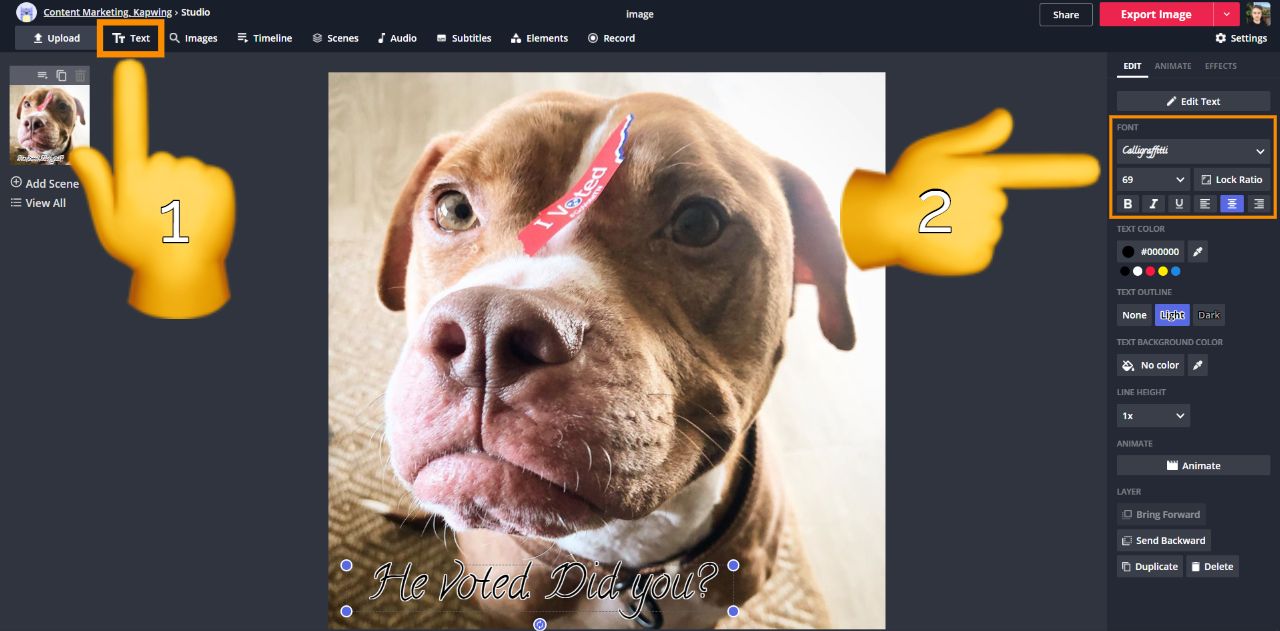
If you want more options, click ‘More Fonts’ in the font drop menu to search every font on Kapwing and sort from A-Z. There’s tons of great fonts to choose from like “Aquafina Script,” “Dancing Script” and “Lovers Quarrel.”
If none of those fonts satisfy, no worries. Kapwing gives Pro users the option to upload a custom font via a .ttf or .otf file. DaFont is a great website to find calligraphy fonts for free and they have thousands to choose from.
3. Customize the Design
Now, it’s time to get creative. Select the calligraphy font and start editing with the tools on the right. There’s options to change text formatting, color, outline and background. Since calligraphy can be hard to read from a distance, I recommend a text outline, contrasting colors and the font size to be as big as possible.
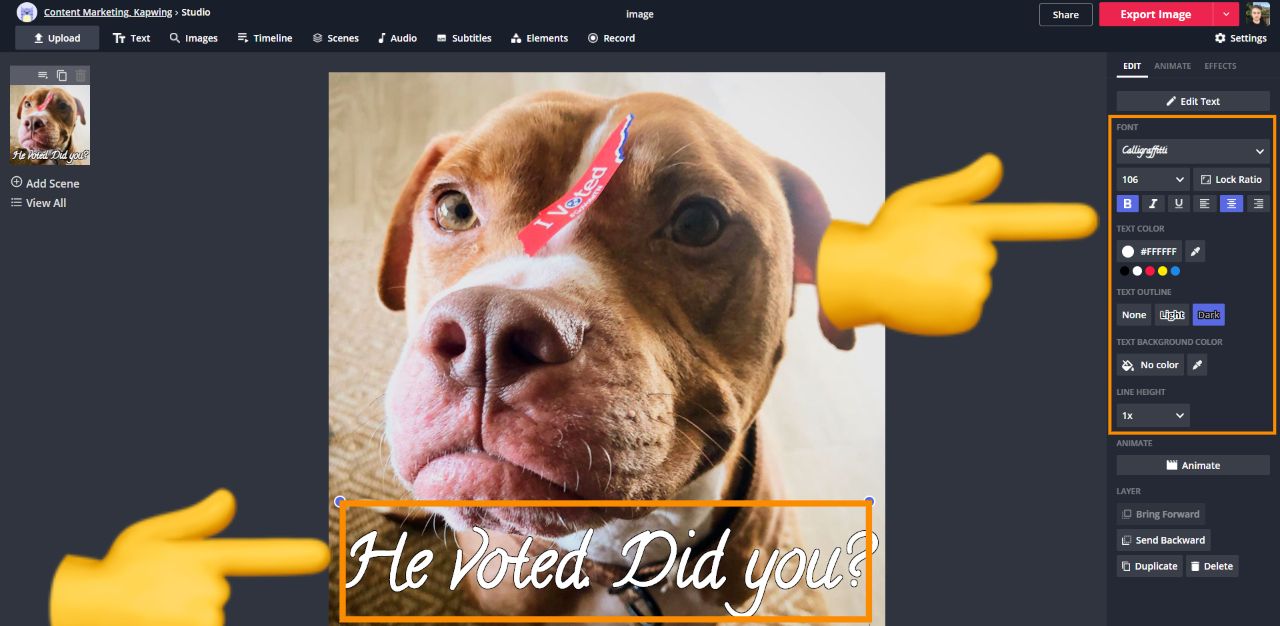
Additionally, Kapwing gives you the tools to animate the text and add a drop shadow effect. This works especially well for videos and GIFs on social media because they grab attention like clockwork. Even for photos, animating the calligraphy font or adding a drop shadow will help the text stand out against the image background.
For video editors, click the ‘Timeline’ to adjust how long the text displays -- otherwise, the text will last the length of the video. It’s easy to slide the ends of the text element to shorten the duration.
4. Export and Download
When you’re finished customizing, open the ‘Settings’ tab from the top right to set the output file and the quality. If you animated the text for a photo, make sure it’s set to ‘GIF’ as the output. Otherwise, leave the output as is and change the quality if you want. Finally, click ‘Export’ from the top, wait for it to process and download the finished project.